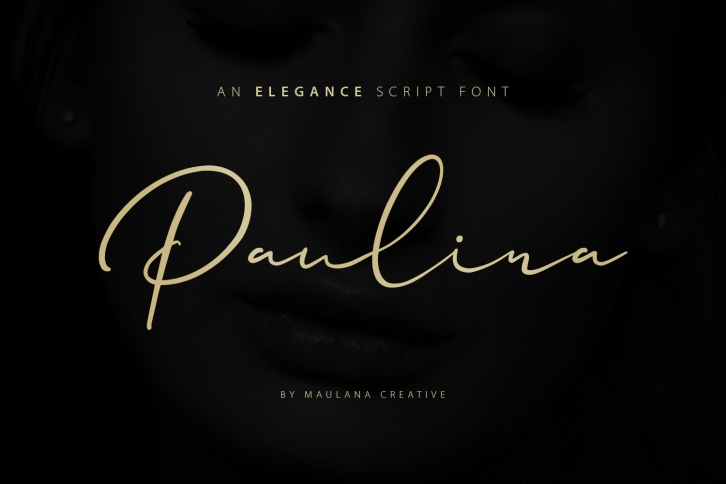
Paulina Elegance Script is a trendy and unique font with an authentic style. It was designed by Maulana Creative and it's a great choice for creative people who need such a font. It was released on August 7, 2019 and the file size is 14.36 MB. Paulina Elegance Script will add an organic vibe to any design idea!